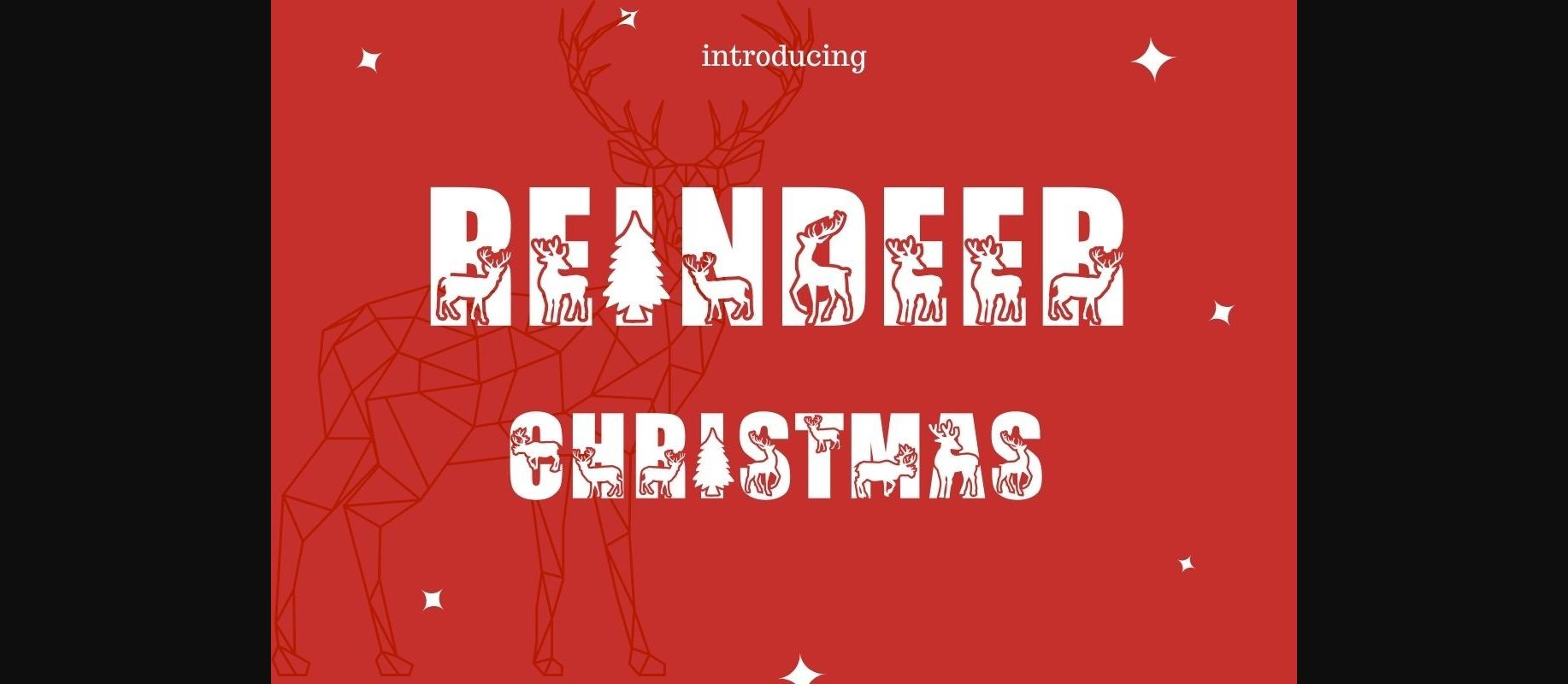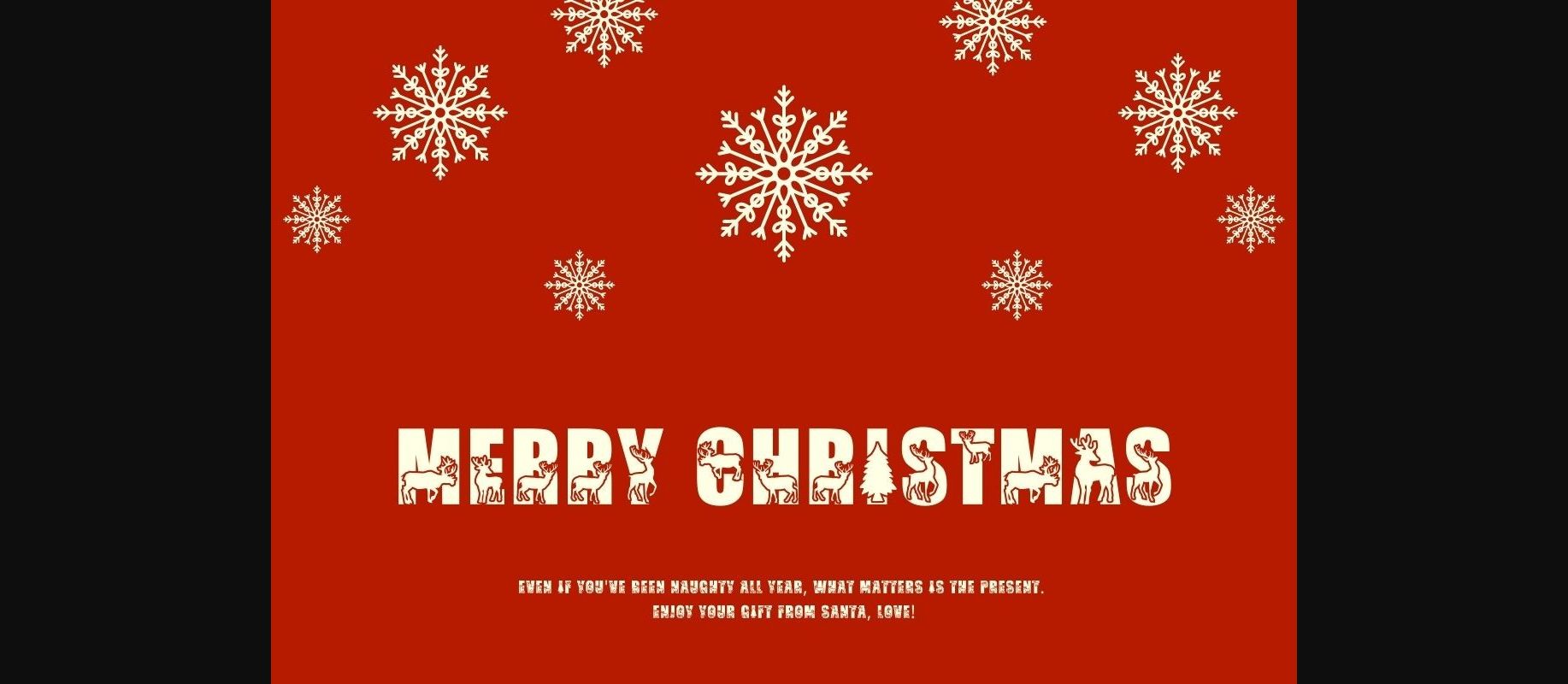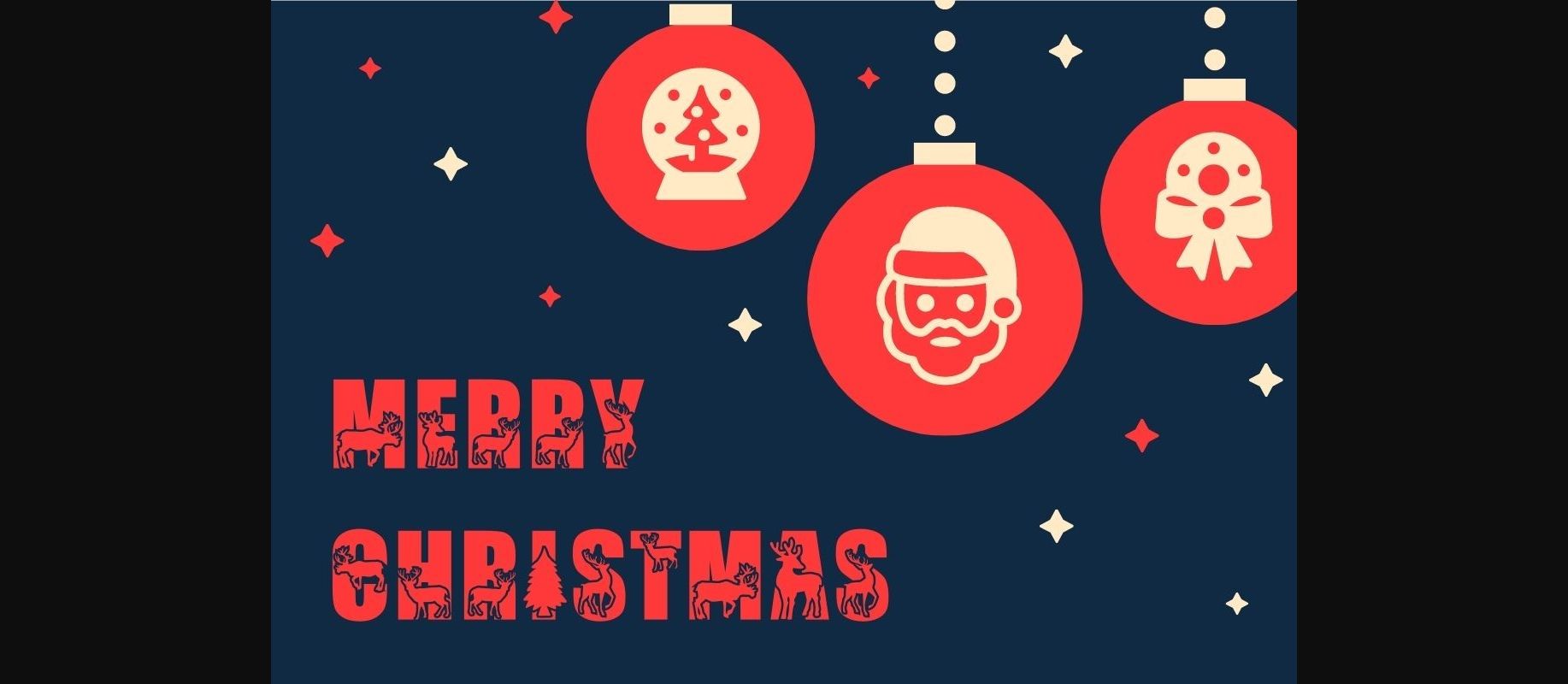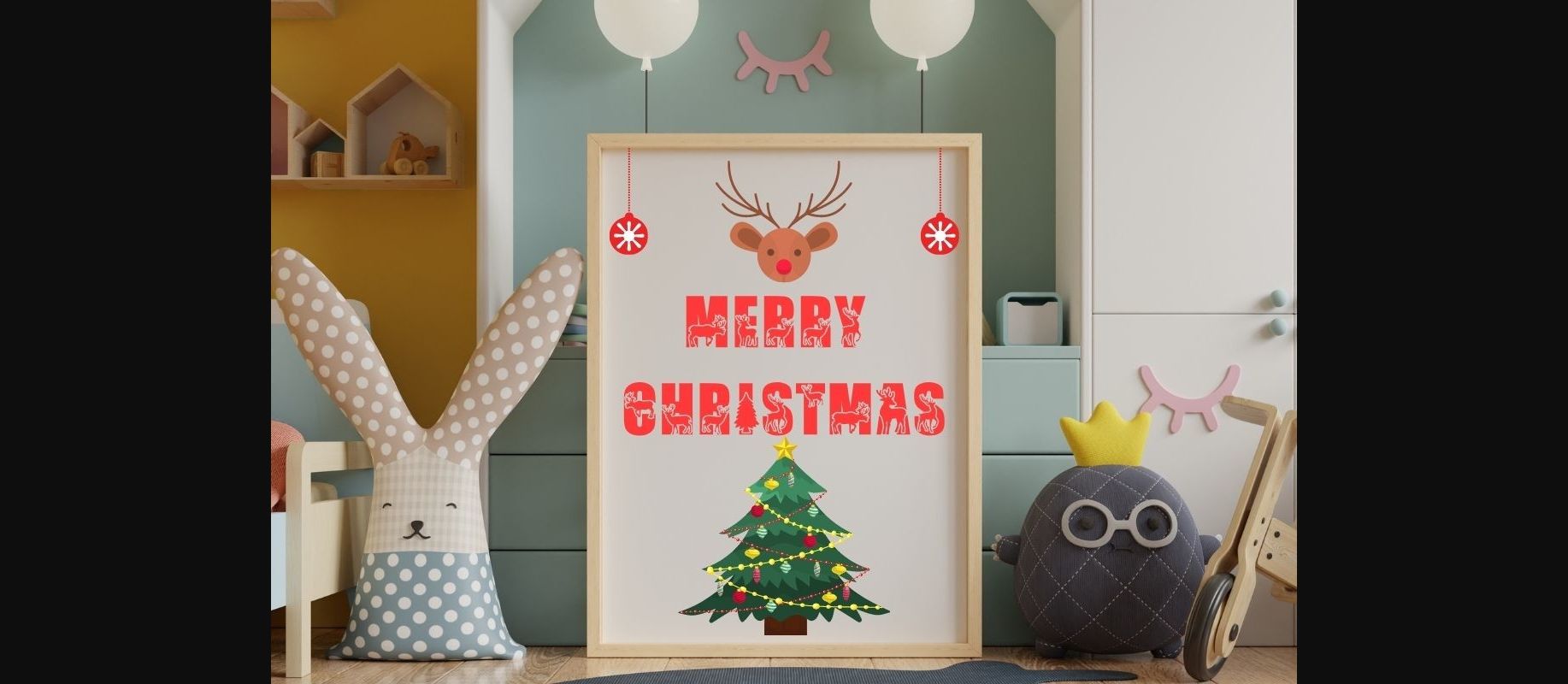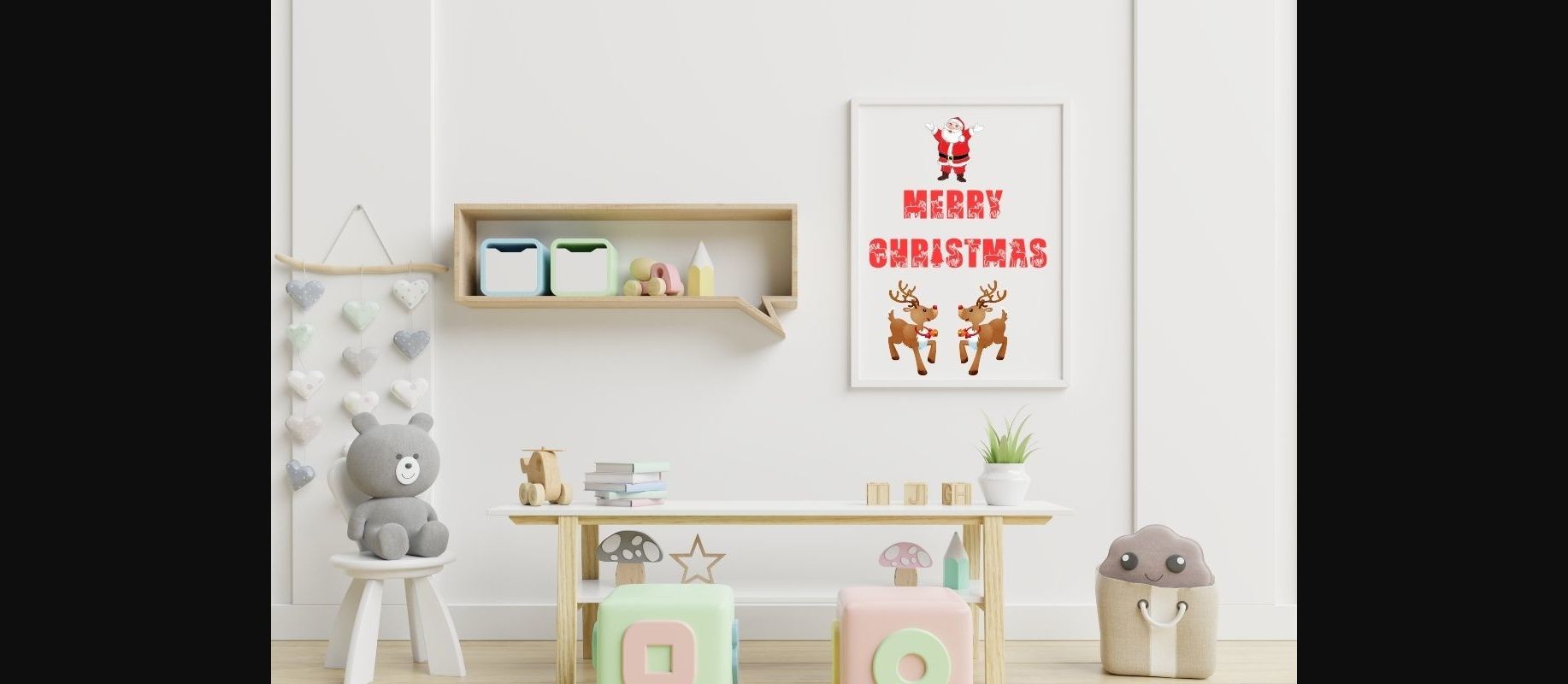
Reindeer Christmas Font
About Reindeer Christmas Font
Reindeer Christmas is a warm and festive looking decorative font. Use it for each of your Winter Holiday’s designs and you will love the outcome.